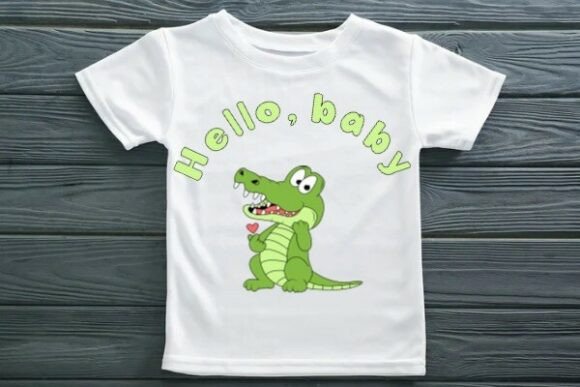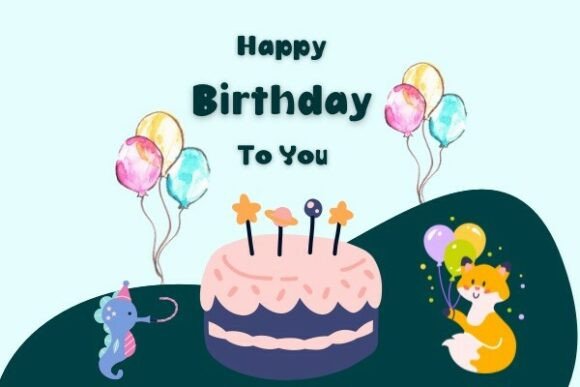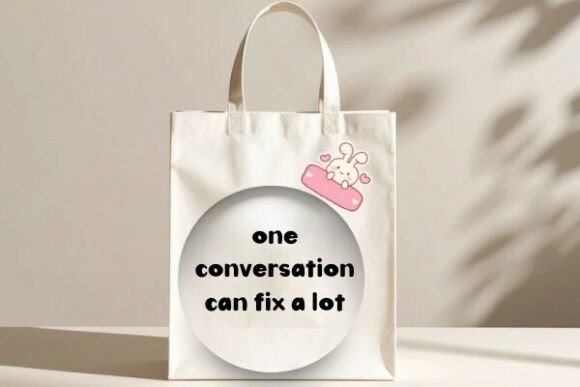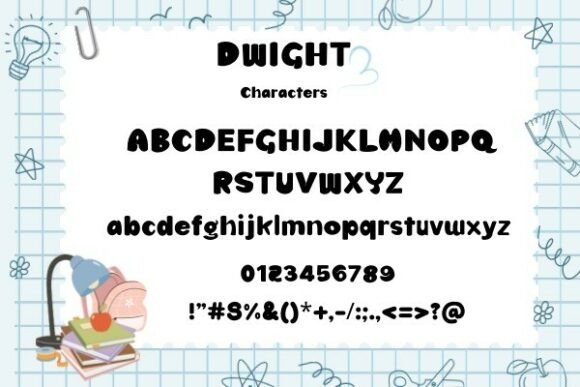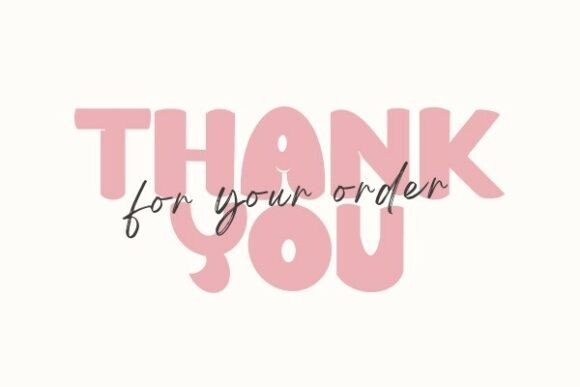
Discover the Simple Elegance of Dwight Font
In the world of typography, there’s a font that stands out for its unique blend of simplicity and charisma. Say hello to the Dwight font, a one-of-a-kind, handwriting-style typography that has been making waves in the design community. With its captivating design, Dwight has become the go-to choice for designers and crafters looking to add a touch of elegance to their creative projects.
The Versatility of Dwight Font
One of the most significant advantages of the Dwight font is its versatility. Its unique design makes it an ideal fit for a wide range of creative areas, from posters and t-shirts to mugs, greeting cards, and invitations. Whether you’re a designer looking to create a stunning visual or a crafter seeking to add a personal touch to your handmade products, Dwight is the perfect choice.
Bringing Life to Posters and T-Shirts
Posters and t-shirts are an excellent way to showcase your creativity, and the Dwight font can help take your designs to the next level. Its handwriting-style typography adds a touch of personality to any design, making it perfect for creating eye-catching posters and t-shirts. With Dwight, you can create designs that are both visually appealing and thought-provoking.
Adding Charm to Mugs, Greeting Cards, and Invitations
Mugs, greeting cards, and invitations are a great way to add a personal touch to your gifts and correspondence. The Dwight font is an excellent choice for these types of projects, as its simple yet striking flair adds a layer of sophistication to any design. Whether you’re creating a custom mug for a friend or designing a greeting card for a special occasion, Dwight is the perfect font to use.
Ideal for Mockups
Mockups are an essential part of the design process, allowing designers to visualize their ideas and make necessary adjustments before finalizing a design. The Dwight font is an ideal fit for mockups, as its simple yet striking flair complements any design work with an added layer of sophistication. With Dwight, you can create stunning mockups that showcase your design skills and attention to detail.
The Allure of Dwight Font
So, what makes the Dwight font so special? The answer lies in its unique blend of simplicity and charisma. Dwight’s design is both elegant and understated, making it perfect for designers and crafters who want to add a touch of sophistication to their creative projects. With Dwight, you can create designs that are both visually appealing and thought-provoking.
Where Simplicity Meets Charisma
The Dwight font is a perfect example of where simplicity meets charisma. Its clean lines and elegant design make it an excellent choice for designers and crafters who want to create stunning visual effects without overpowering their designs. With Dwight, you can add a touch of personality to your creative projects without sacrificing style or sophistication.
Tips for Using Dwight Font
Here are some tips for using the Dwight font in your creative projects:
- Use Dwight as a headline font to add a touch of elegance to your designs.
- Pair Dwight with other fonts to create a unique and visually appealing design.
- Use Dwight for body text to add a personal touch to your designs.
In conclusion, the Dwight font is a unique and captivating handwriting-style typography that is perfect for designers and crafters looking to add a touch of elegance to their creative projects. With its versatility, simple yet striking flair, and unique blend of simplicity and charisma, Dwight is an excellent choice for a wide range of creative areas. Whether you’re creating posters, t-shirts, mugs, greeting cards, or invitations, Dwight is the perfect font to use.